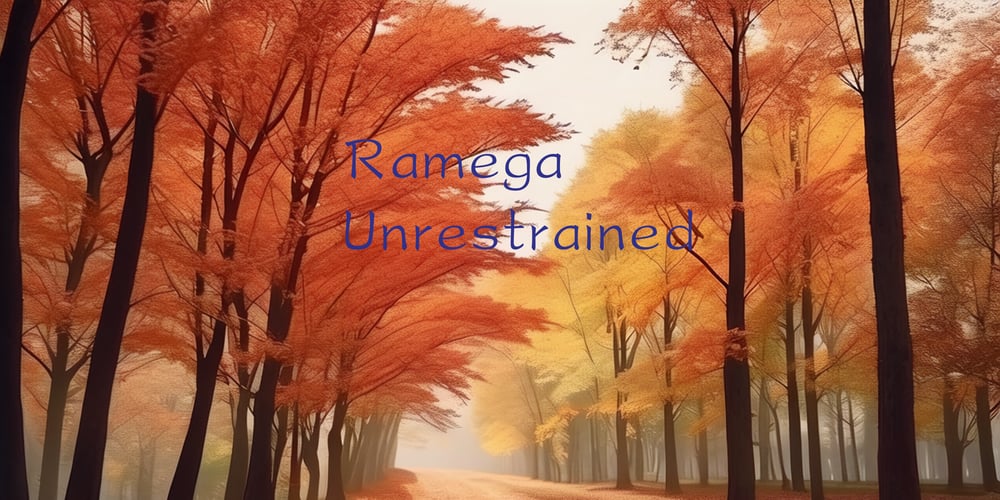
Ramega Unrestrained
Ramega Unrestrained Font Family was designed by Apollo Zhang and published by Ramega. Ramega Unrestrained contains 1 styles and family package options. Introducing Ramega Unrestrained: A Typeface Where Elegance Meets IndividualityRamega Unrestrained is a visually compelling typeface that bridges the gap between meticulousness and freedom of expression. Drawing inspiration from the dynamic flow of Chinese running script (Xingkai), this font marries the principles of order with unbounded expressiveness, offering designers a versatile tool that is both precise and profoundly personal.At the heart of Ramega Unrestrained lies a profound appreciation for craftsmanship and individuality. Each character in the typeface has been painstakingly designed to ensure clarity and readability, while also allowing for strokes and lines that break away from the expected. This results in a font that feels both familiar and unexpectedly fresh, perfect for creators looking to infuse their work with a sense of spontaneity without sacrificing sophistication.Ramega Unrestrained is not just a font; it’s an embodiment of freedom within structure. Its characters boast a balanced mix of clean lines and creative flair, making it ideal for a wide array of applications. Whether it’s branding, editorial design, or personal projects, this typeface adds a touch of distinction that is both engaging and respectfully rebellious.Moreover, Ramega Unrestrained challenges the conventional boundaries of typographic expression. It invites users to explore the realms of their creativity, offering a canvas for expression that is expansive and liberating. This font is a testament to the beauty of controlled chaos and the power of nuanced design.In conclusion, Ramega Unrestrained is a typeface for the modern creator who values precision but yearns for the freedom to explore. It’s a tool that pays homage to the art of calligraphy while embracing the nuances of individual expression. Let Ramega Unrestrained be the voice of your next project, where the elegance of tradition meets the boldness of innovation.